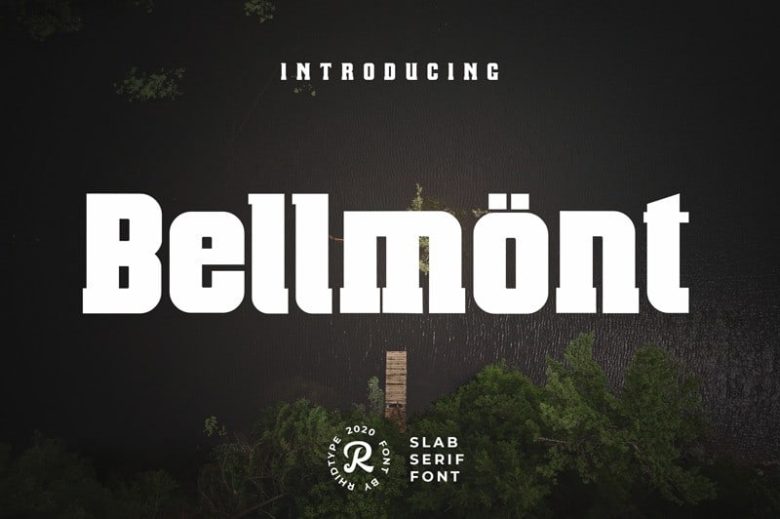
Bellmönt Display Font Free
Bellmönt Display Font is a versatile grotesque typeface, bold, tall, a bit of vintage feel. Made from font designer named Repi Hilmana. It can be used diversely, but is particularly best in logos and large typographic applications. This font is perfect for designing vintage logotypes, badges, labels, t-shirt prints, business cards, flyers, posters, ads, restaurant menus, signs, typography design, quotes and any graphic design, etc.